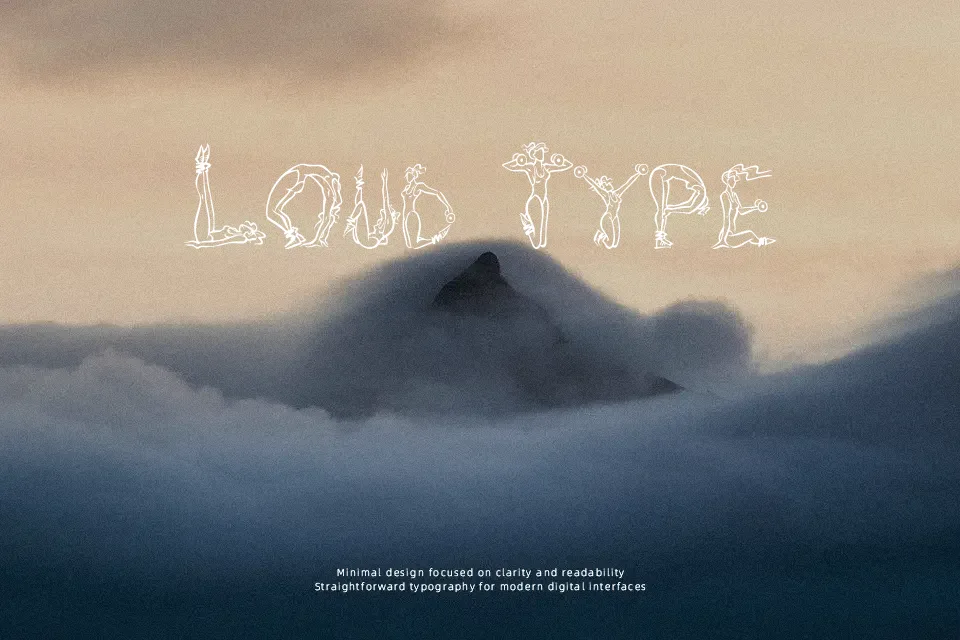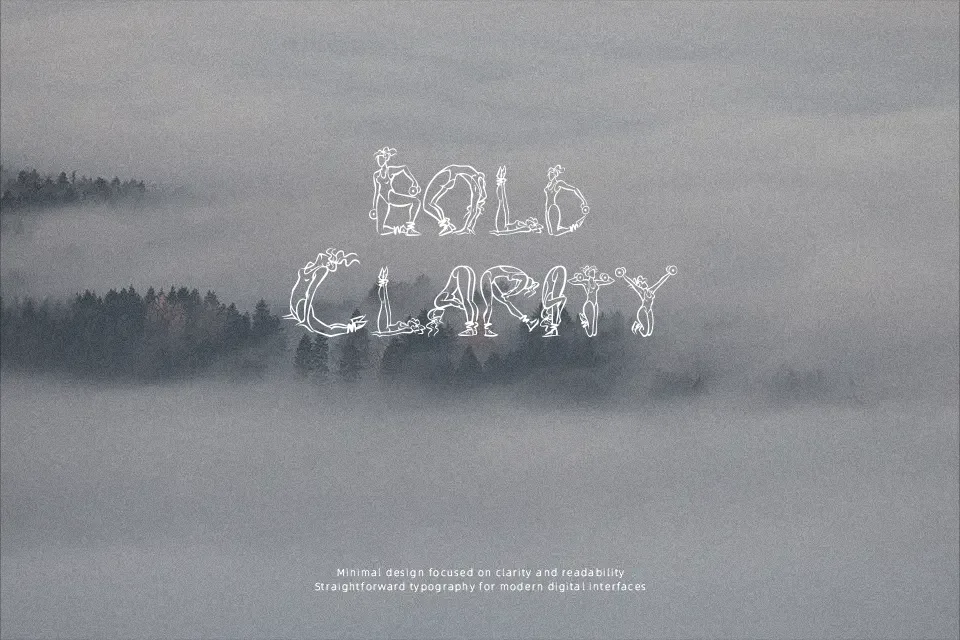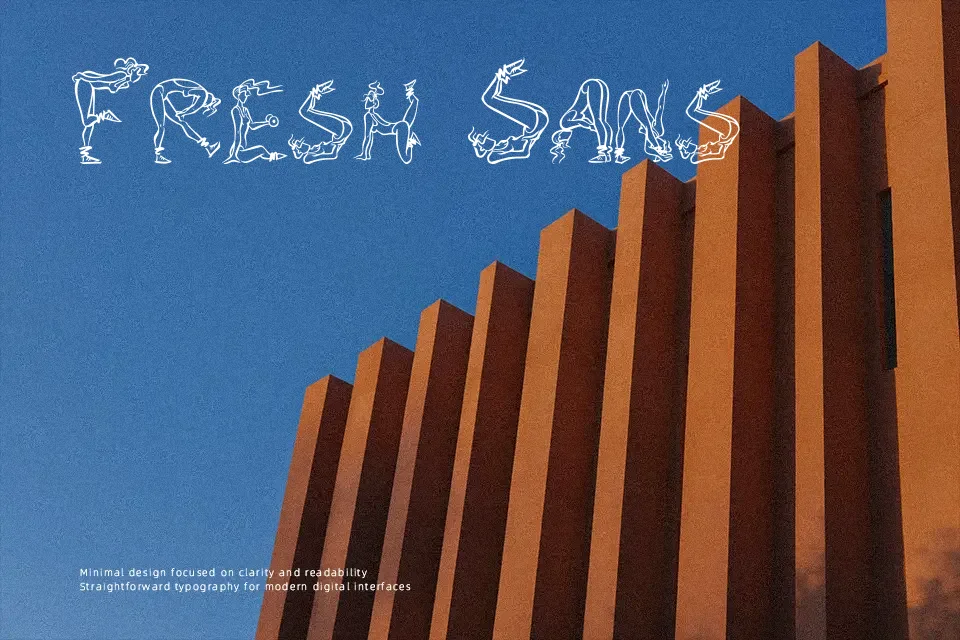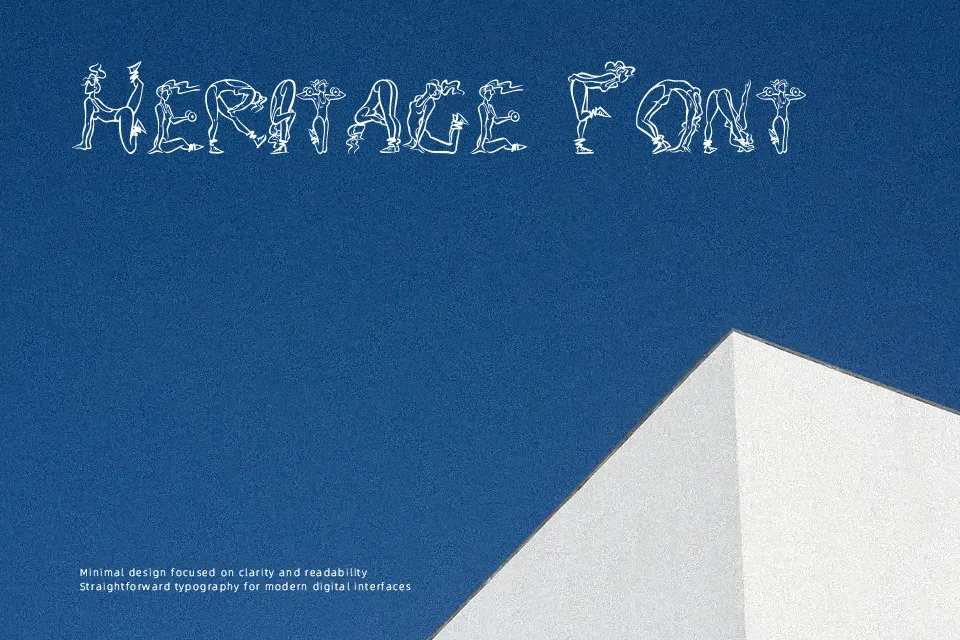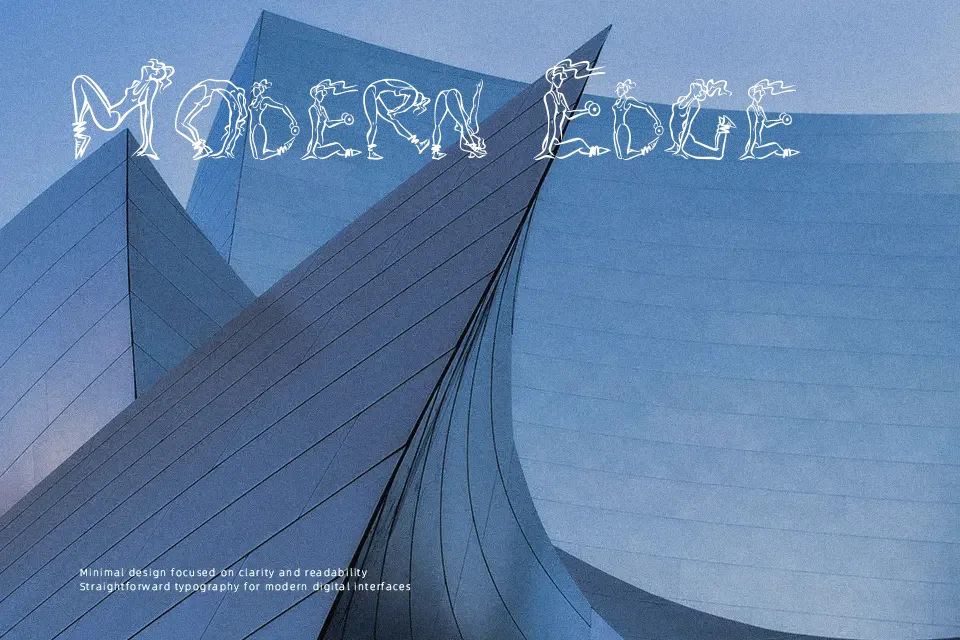
Alpha Fitness Font
Designed by Chloe5972
Alpha Fitness draws each character from stylized human silhouettes stretching, lifting, and posing, so the alphabet looks like a sequence of tiny exercising figures rather than conventional strokes. The outlines are relatively even in weight and spacing is loose enough for short words, but extended text quickly becomes hard to scan. As a decorative display face, it feels playful and thematic, fitting niche uses like fitness challenge titles, kids’ sports day posters, or wellness campaign slogans where the concept needs to shout “movement.” It tends to fail in body copy, UI, or small captions, where the busy shapes and novelty concept reduce legibility and can distract from the message.
fitness event poster headlines
gym or wellness campaign slogans
sports-themed social media graphics
small-size captions or disclaimers
dense data or editorial layouts
Perfect for branding, logo, and poster, with a creative and decorative style.